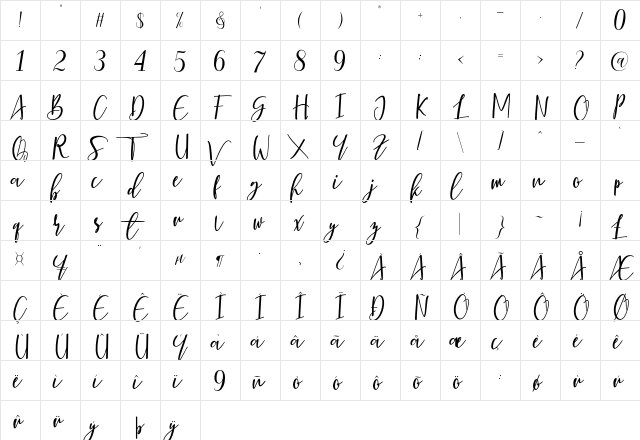
Berhilda Script Regular
| Foundry | Mightype |
| Designer | Munawir |
Design Context for Berhilda Script Typeface
Berhilda Script brings a calligraphic fluidity to the page — its connecting strokes and expressive curves give it an unmistakably human quality.
Font Pairing: Combine Berhilda Script with a simple geometric sans for maximum contrast — the tension between flowing curves and clean structure is a classic typographic pairing.
Pro Tip: Use Berhilda Script for short runs of text — names, titles, or taglines. Extended body copy in script faces tires the eye quickly.